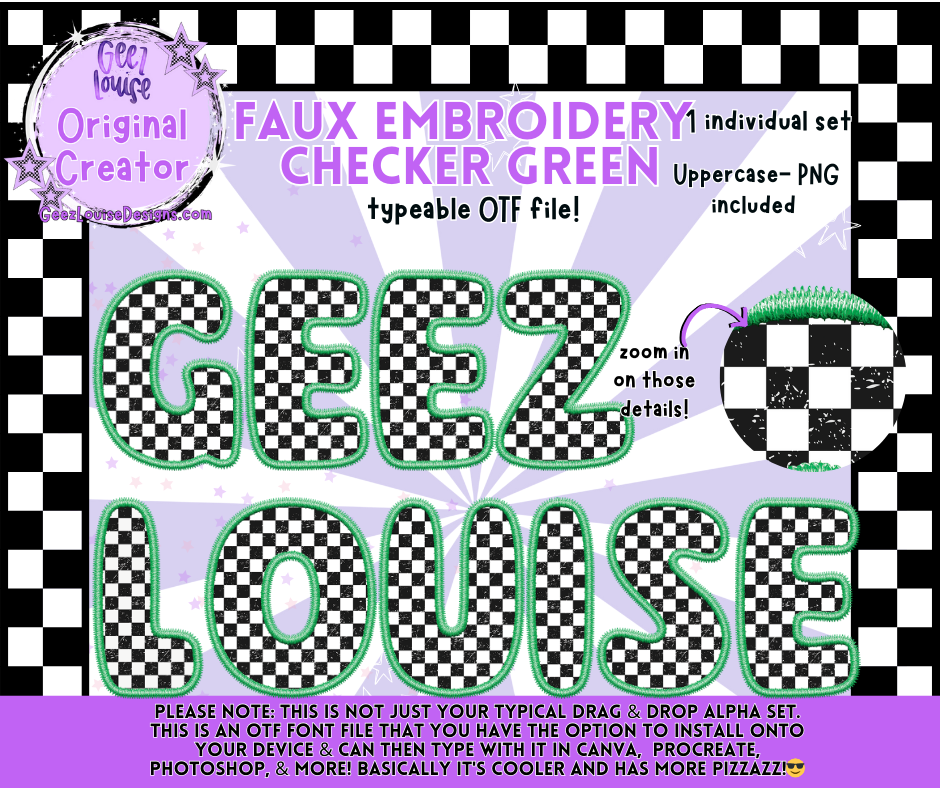
Faux Embroidery Checker Green — Typeable OTF Font + PNG
Checkerboard boldness. Green-stitched rebellion. This font is stitched for the maximalists, the mascot-makers, and the Canva-core creators who want their type to feel embroidered, electrified, and ready to headline a drop.
• 1 individual set – Black-and-white checkerboard fill with green embroidery-style outlines
🧵 Why It Slaps:
• Perfect for merch mockups, caption challenges, mascot lore, and seasonal chaos
• Texture-rich and vibe-heavy, built to scream louder than your feed